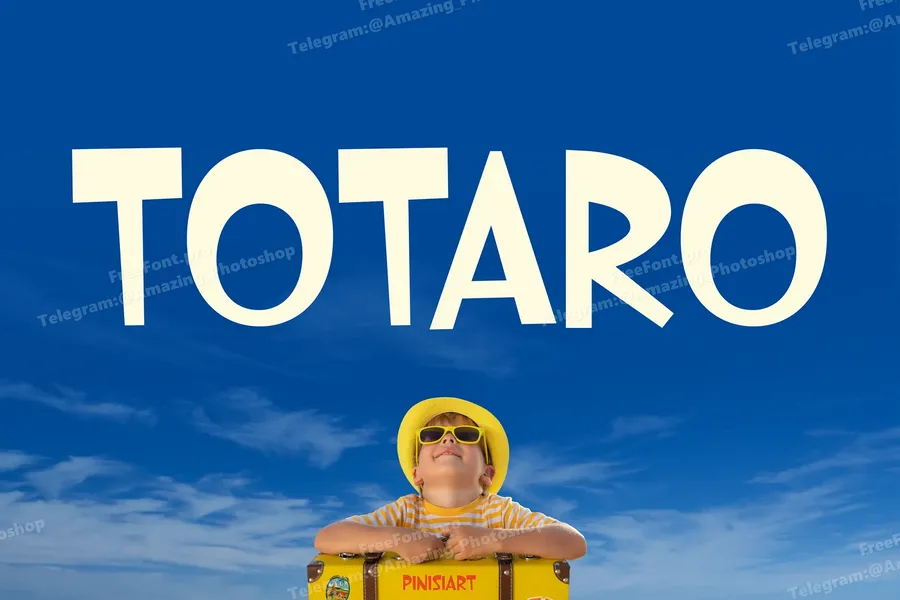
TOTARO – Creative Kids Display
TOTARO is a bold kids’ sans-serif designed with a sense of movement, clarity, and youthful confidence. With strong diagonals, tight curves, and adventurous spacing, this font brings the spirit of field trips, summer camps, and airport signs straight into your design. TOTARO is not bubbly or soft—it’s direct, exciting, and full of purpose. Ideal for brands or projects that cater to energetic young audiences who love exploring new things.
Its form is built to stay readable from a distance while still carrying the personality of fun and travel. Think kids’ museum guides, tour posters, park signage, or interactive exhibitions — wherever clarity and cheerfulness need to meet.
Whether you’re designing for travel-themed children’s products, educational adventures, vacation campaigns, or a joyful event for young voyagers, TOTARO adds impact without losing friendliness. It turns maps, tickets, booklets, and websites into clear, energetic experiences. Perfect for communicating direction, excitement, and exploration all at once.
Key Features:
Clear, bold sans serif made for high legibility and kid-friendly impact
Dynamic letterforms with strong diagonals and compact curves
Excellent for wayfinding, posters, banners, and signage
All caps and lowercase support for typographic variation
Designed for branding in the tourism, education, and entertainment sectors
Uppercase A–Z, Numbers, Punctuation & Symbols